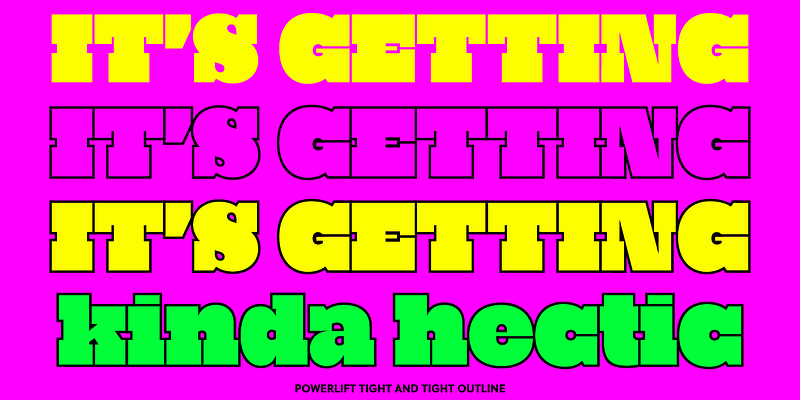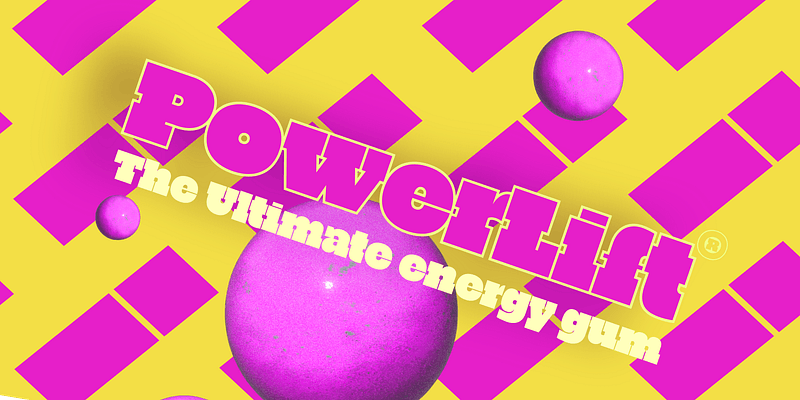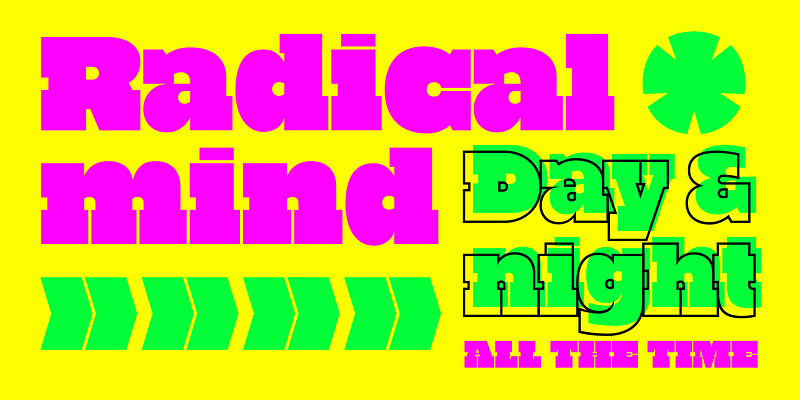
A fun departure from Petr van Blokland’s other types, PowerLift is a chunky, single-weight display slab that comes in two versions: Tight and Tight Outline. PowerLift embraces and rethinks the challenge of combining heavy letterforms with blocky serifs. In some places, apertures close up and the forms fold into themselves, creating surprising new counters where traditionally one would expect openings. The styles fit together seamlessly, but each can also be used as a standalone typeface. TYPETR, 2018.
Born in Gouda, the Netherlands, in 1956, Petr van Blokland graduated cum laude from the graphic arts program at the Royal Academy of Fine Arts (KABK) in The Hague in 1980.
With his partner Claudia Mens, Van Blokland worked for over thirty-five years as a designer in the studio they cofounded. His output ranged from sketching and model-making to programming in various languages. He specialized in systematic design: corporate identities, form systems, online publications, and tools for type design.
After decades of publishing through Font Bureau, Petr van Blokland cofounded Type Network, where he exclusively releases new typefaces under the TYPETR label. He plans to publish new families on a regular basis and will also write the occasional educational post about graphic design, typography in general, and how to use type in particular.